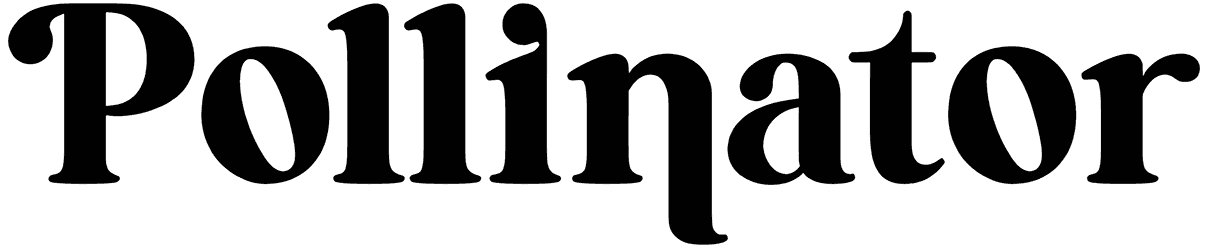
Pollinator Font
If only you knew all the awesome works you can do with Pollinator, you wouldn’t waste another second before adding this elegant font and its blooming capitals to your collection.
You must have had plenty of logo projects so far and you’ll definitely receive more of them from now on as well. So you better prepare yourself for that with this stylish serif font. It’s all you’re ever going to need for branding your accessories, paint, purses, or dresses.